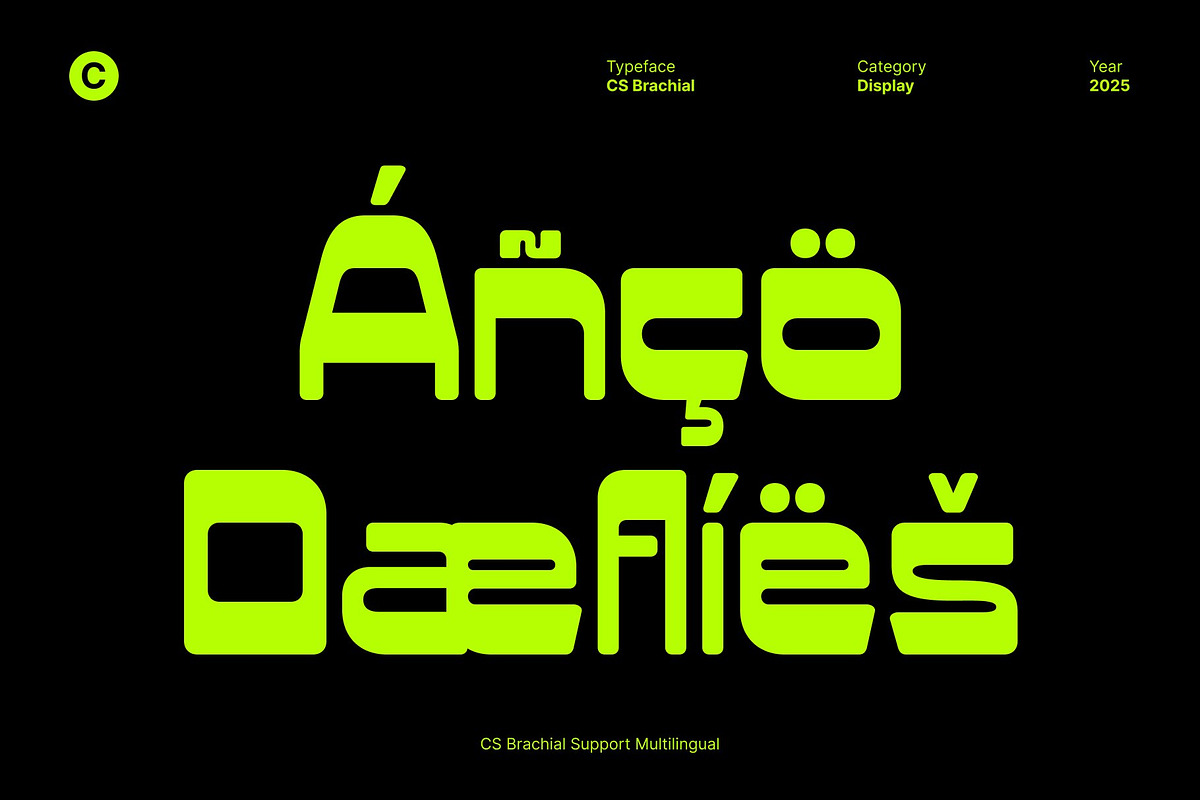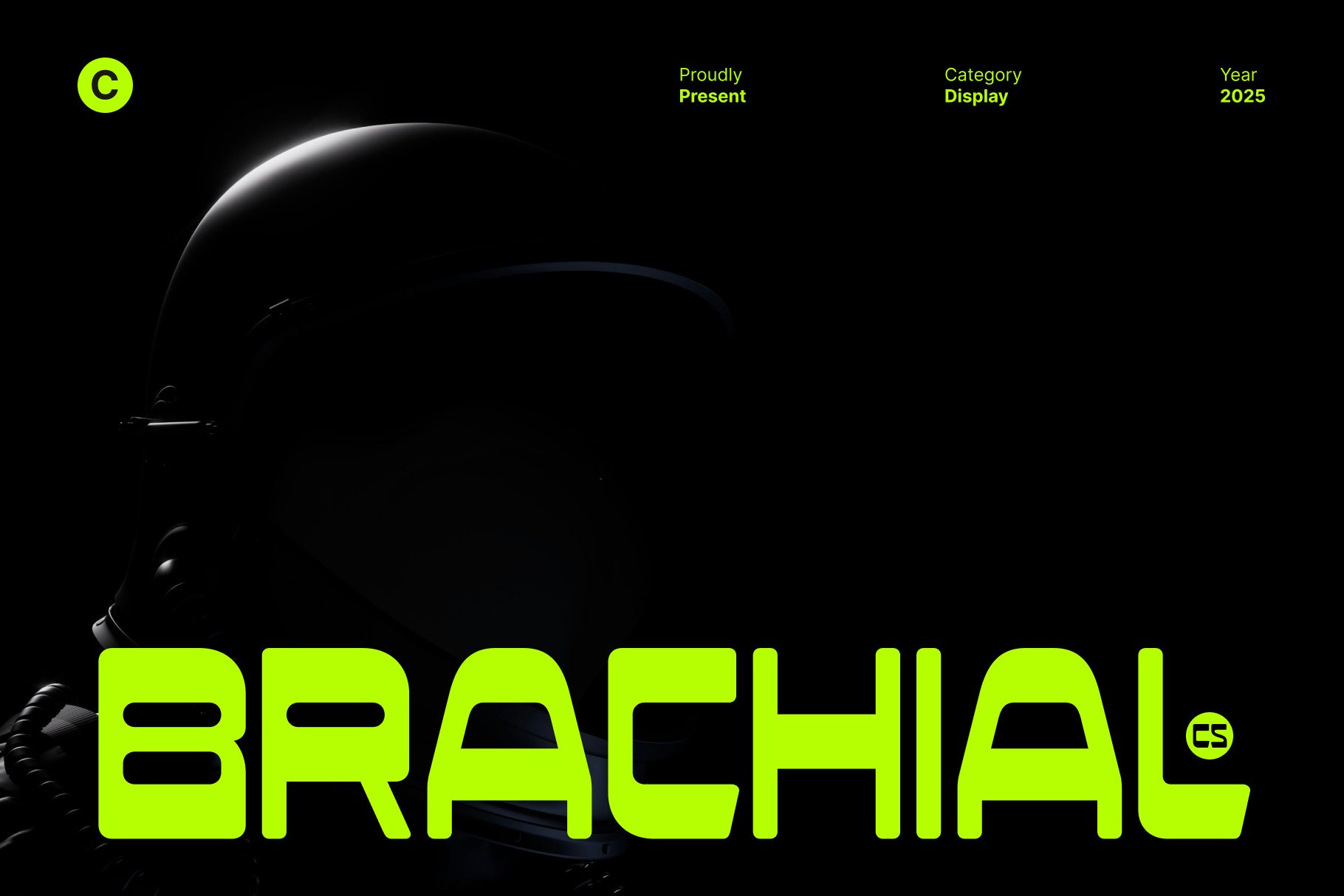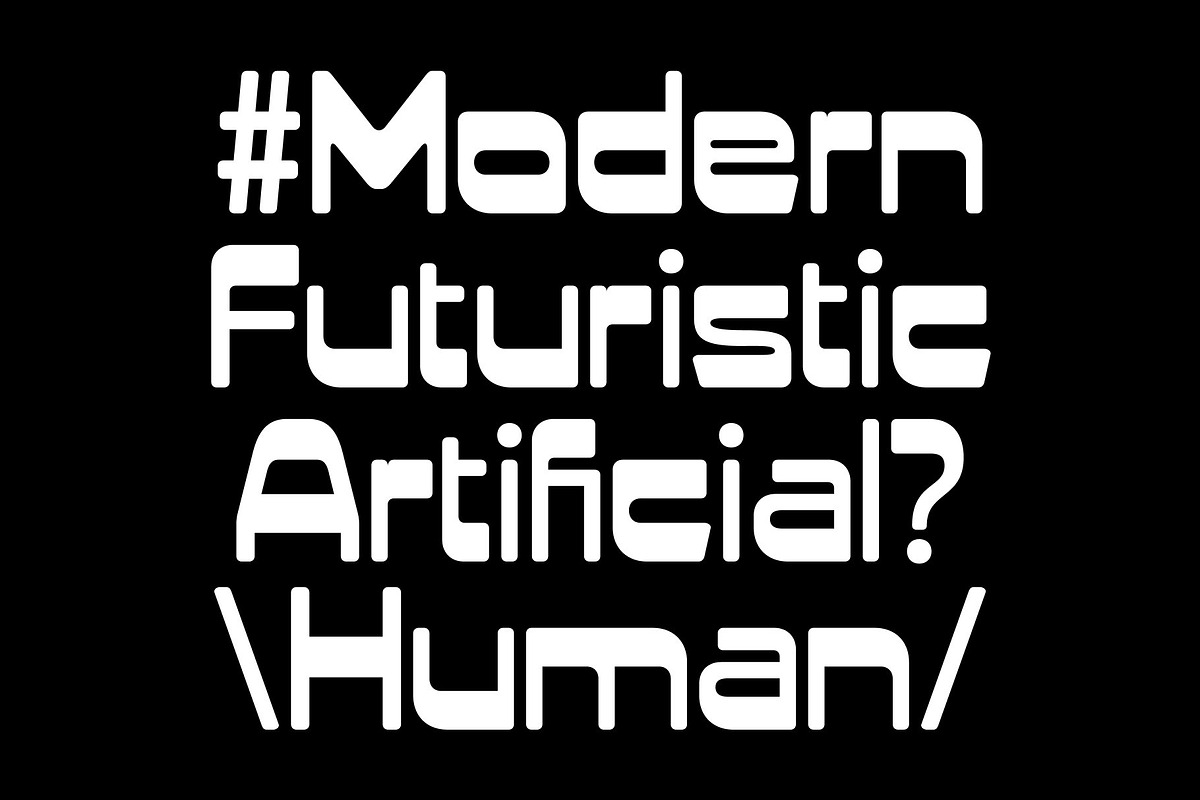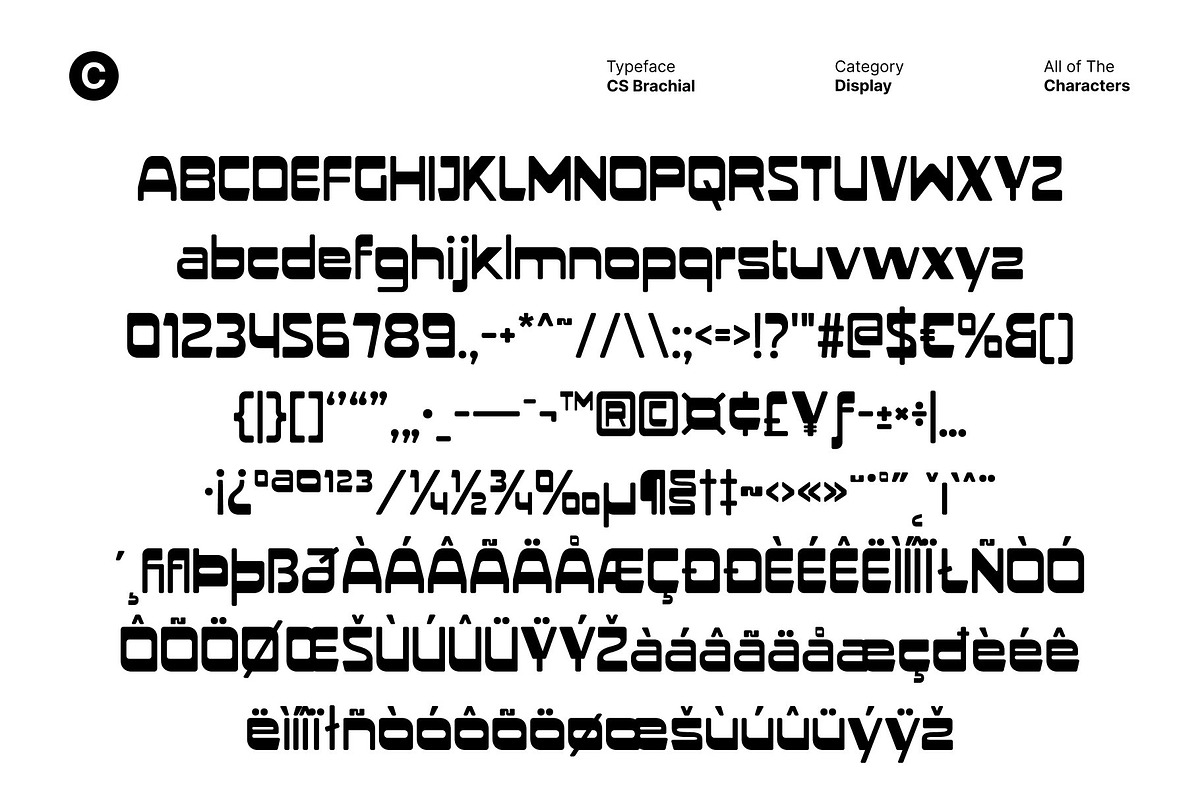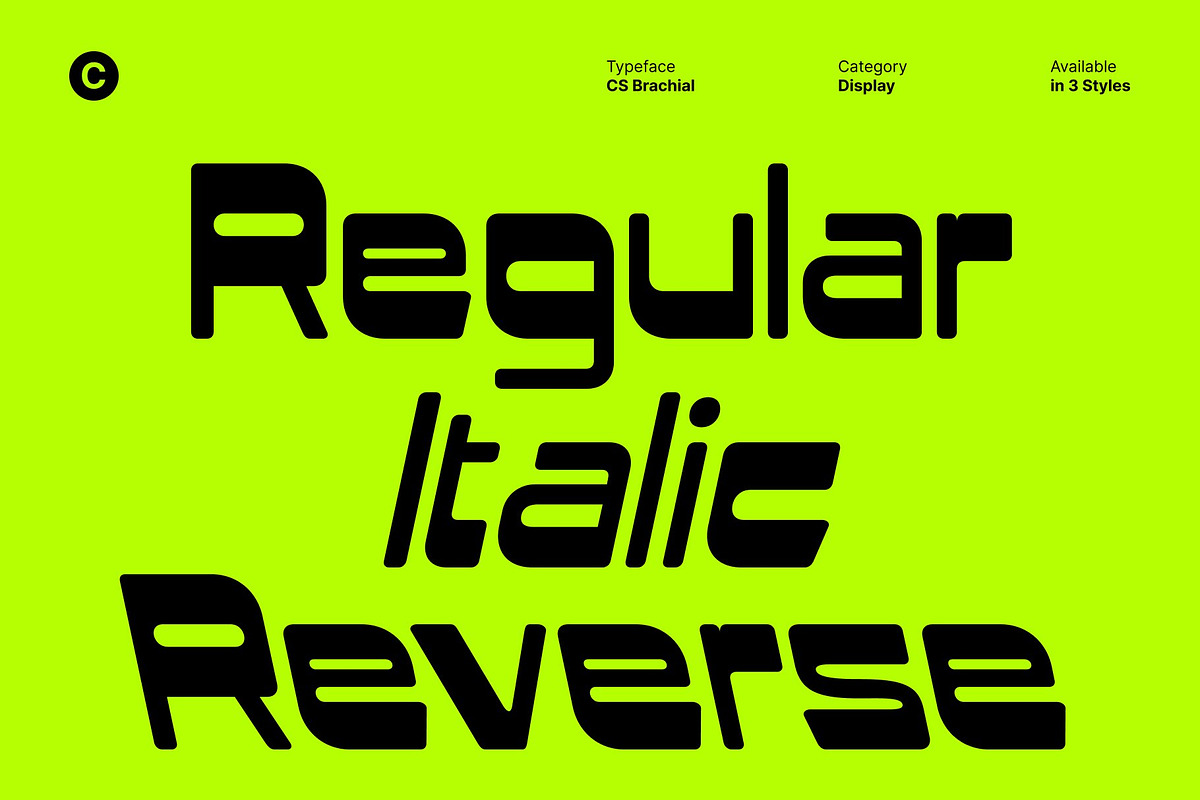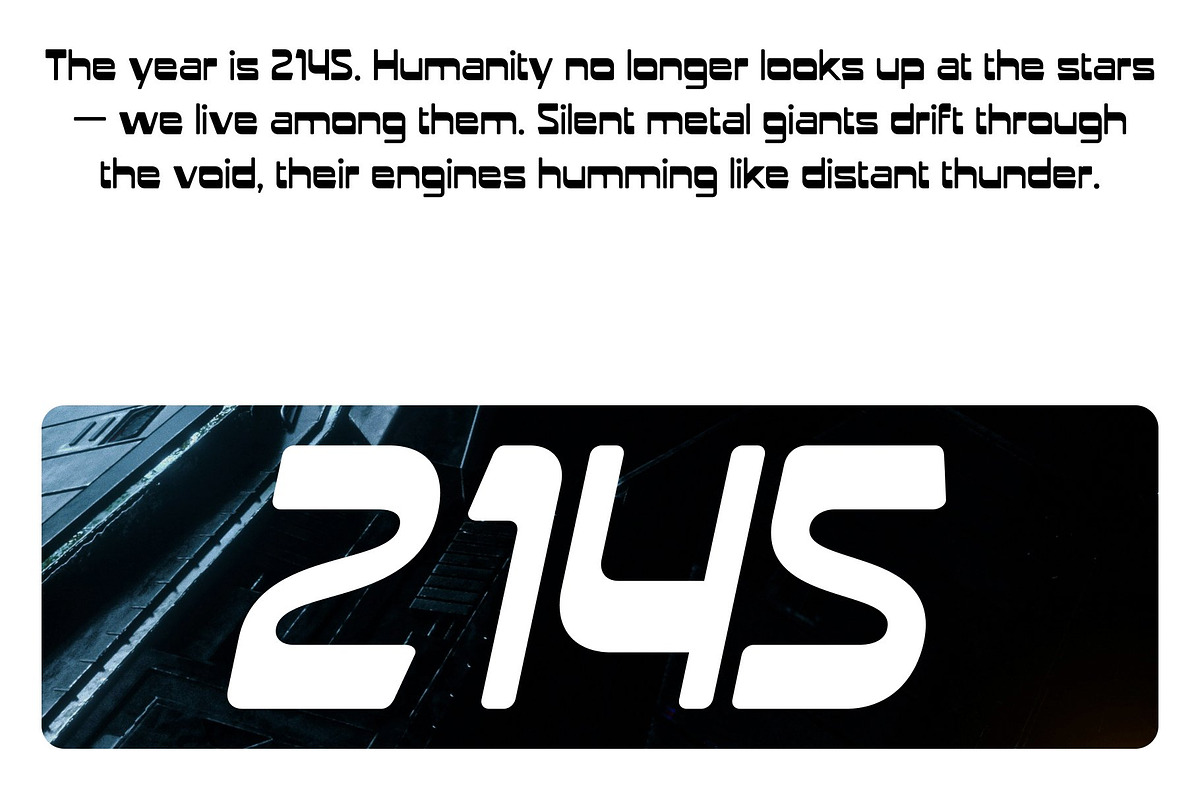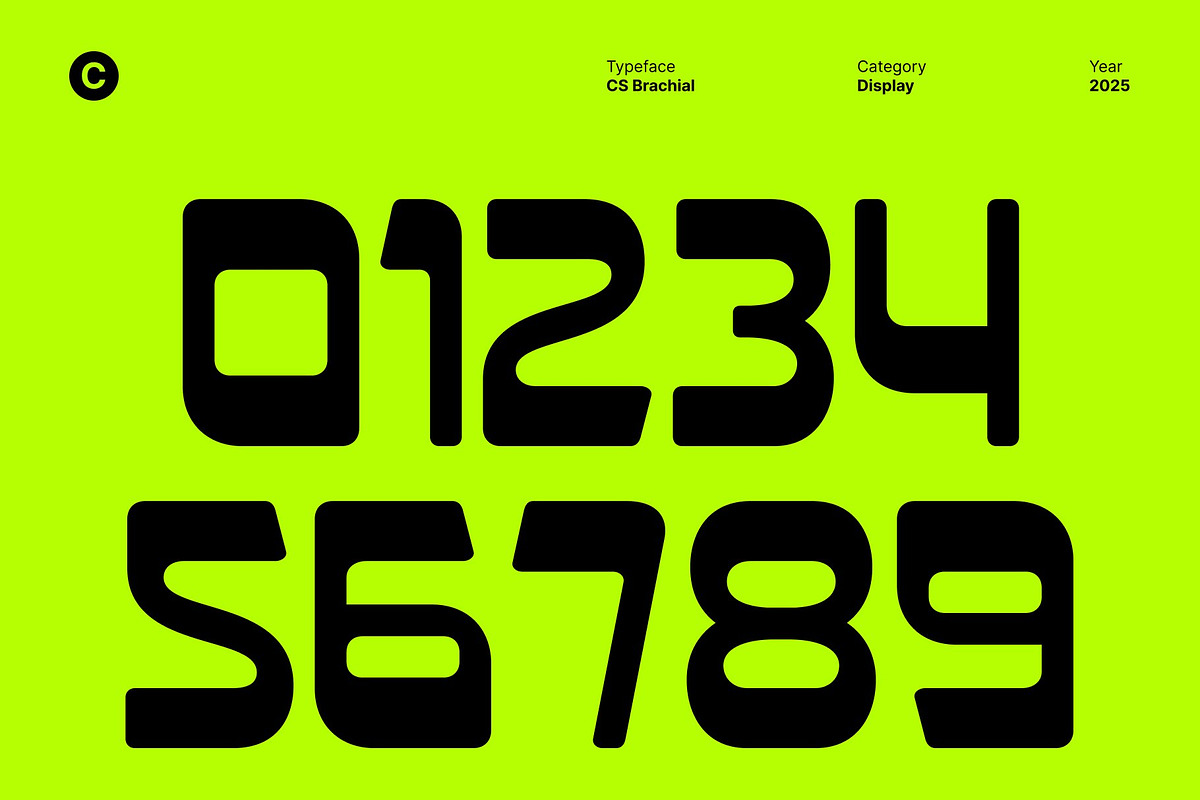
CS Brachial – Modern Futuristic Font
CS Brachial – Futuristic Power in Every Line
Techno-Inspired Sans Serif with Reverse Contrast This is a edgy sans serif font that channels the high energy aesthetics of techno and futuristic design. With its reverse contrast and sleek geometric shapes, this font delivers a visually powerful impact that feels cutting edge and modern. Each letterform is meticulously crafted to balance precision with personality, creating a typeface that commands attention in any design.
Dynamic Shapes with Futuristic Appeal The unique reverse contrast gives this font its distinctive edge, flipping traditional design expectations into something bold and forward thinking. Its sharp lines and compact proportions create a dynamic sense of motion and rhythm perfect for projects that embrace technology, innovation, and digital energy.
Perfect for Branding and Visual Statements Ideal for logos, branding, and poster designs, this font brings a strong, futuristic presence to every application. Its assertive design ensures your visuals stand out in both digital and print contexts, making it a top choice for tech companies, music branding, or creative studios seeking a modern identity.
Bold, Modern, and Electrically Charged This font isn’t just a font it’s an attitude. Its techno-inspired structure and experimental contrast radiate strength and sophistication. Use this font to inject your designs with modern energy and bold futurism, creating visuals that are as sharp and daring as the world they represent.